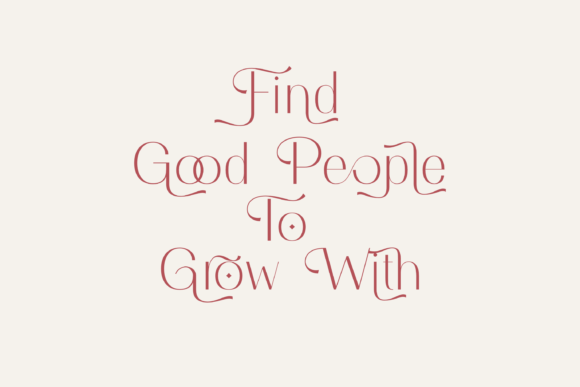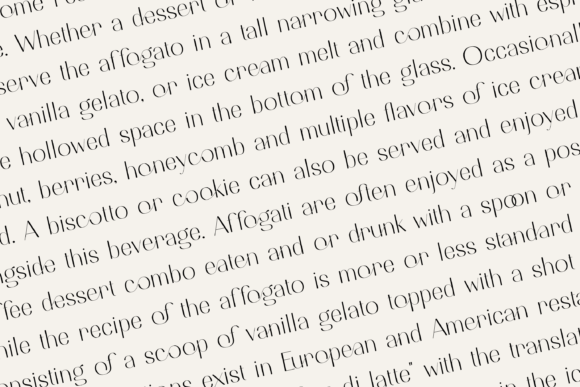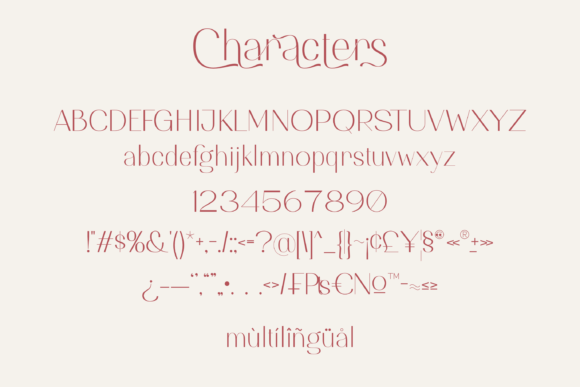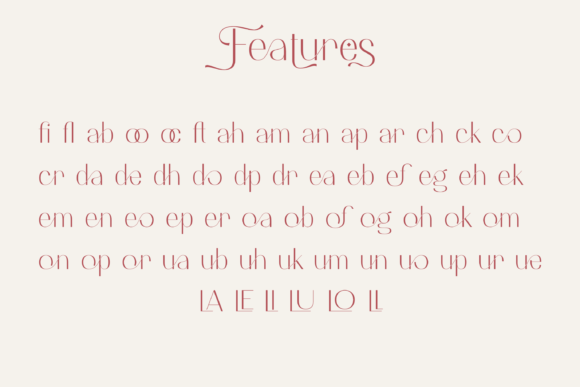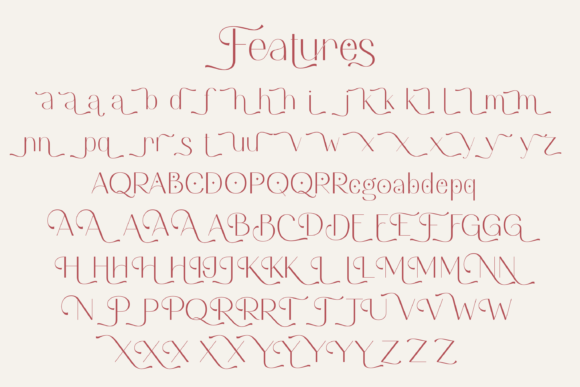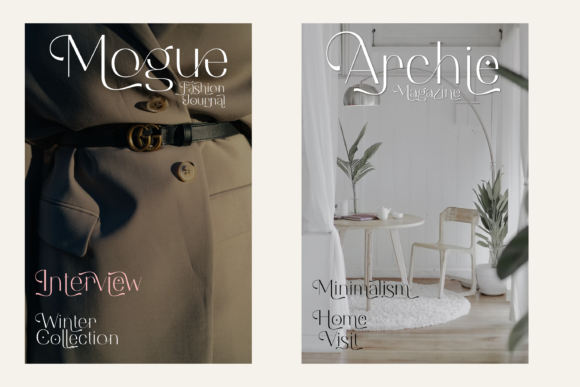
Fogato Font: Elevate Your Designs with Modern Elegance
In the world of typography, a font can make or break a design. For designers and crafters looking to add a touch of sophistication to their projects, Fogato Font is an excellent choice. This modern and elegant sans serif font has been gaining popularity for its clean lines, versatility, and ease of use. In this article, we’ll dive into the features and benefits of Fogato Font, and explore how it can elevate your designs.
What is Fogato Font?
Fogato Font is a contemporary sans serif font designed to provide a fresh and modern look to various design projects. Its clean and elegant lines make it perfect for use in a wide range of applications, from branding and advertising to packaging and digital media. The font’s simplicity and sophistication ensure that it can be used to convey a message in a clear and visually appealing way.
PUA Encoding: Easy Access to Glyphs and Ligatures
One of the standout features of Fogato Font is its PUA (Private Use Area) encoding. This means that the font includes a range of glyphs and ligatures that can be easily accessed and used in your designs. PUA encoding allows designers to access these additional characters without the need for complex software or technical expertise. With Fogato Font, you can effortlessly add unique touches to your designs, taking them to the next level.
Key Features of Fogato Font
- Modern and elegant sans serif design: Fogato Font boasts a clean and contemporary look, making it perfect for designs that require a touch of sophistication.
- PUA encoded: Easy access to a range of glyphs and ligatures, allowing for greater creative flexibility.
- Versatile: Suitable for use in a wide range of design projects, from branding and advertising to packaging and digital media.
Fogato Font offers numerous benefits for designers and crafters looking to elevate their designs. Some of the key advantages include:
- Time-saving: With Fogato Font’s PUA encoding, designers can quickly and easily access the glyphs and ligatures they need, saving time and streamlining their workflow.
- Increased creativity: The font’s range of glyphs and ligatures provides designers with greater creative flexibility, allowing them to experiment with new and innovative design ideas.
- Consistency: Fogato Font’s clean and elegant design ensures consistency across various design projects, helping to establish a strong brand identity.
How to Use Fogato Font in Your Designs
Incorporating Fogato Font into your designs is easy. Here are a few tips to get you started:
- Pair it with other fonts: Fogato Font works well when paired with other sans serif fonts, creating a clean and cohesive look.
- Experiment with glyphs and ligatures: Take advantage of Fogato Font’s PUA encoding to add unique touches to your designs.
- Use it in digital and print designs: Fogato Font is suitable for use in both digital and print designs, making it a versatile addition to your font library.
Fogato Font is a modern and elegant sans serif font that offers a range of benefits for designers and crafters. Its PUA encoding provides easy access to glyphs and ligatures, while its clean and sophisticated design ensures consistency across various design projects. Whether you’re looking to elevate your branding, advertising, or packaging designs, Fogato Font is an excellent choice. With its versatility, ease of use, and creative flexibility, Fogato Font is sure to become a staple in your font library.